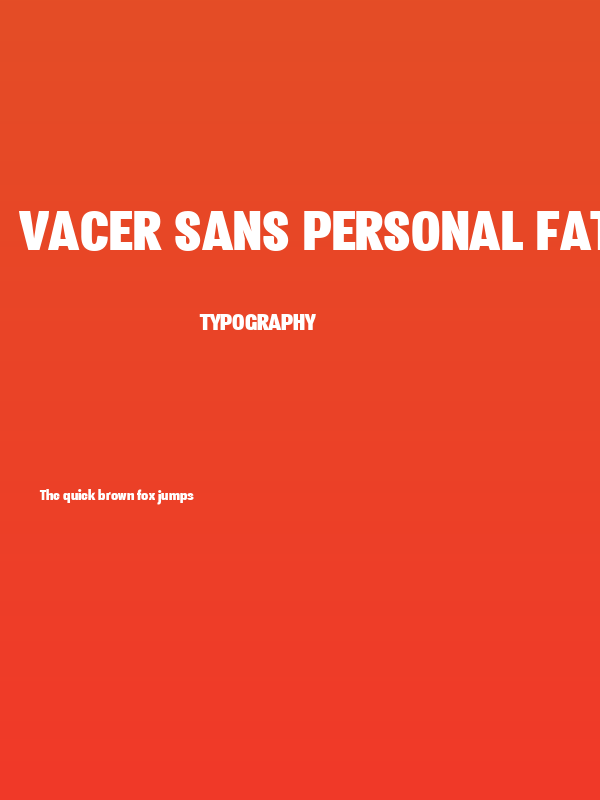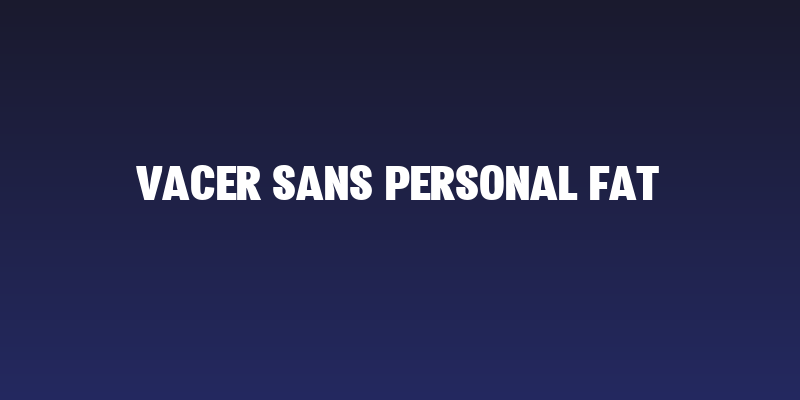
Vacer Sans Personal Fat Font
Vacer Sans Personal Fat Description
This font features a bold, impactful design with thick strokes and a strong presence. The characters are uniformly wide, providing a sense of stability and confidence. The uppercase and lowercase letters are well-proportioned, maintaining a consistent weight throughout. The numerals are equally bold, ensuring they stand out in any context. Special characters are included, matching the overall robust style. This font is ideal for making a statement, with its clear and assertive appearance.